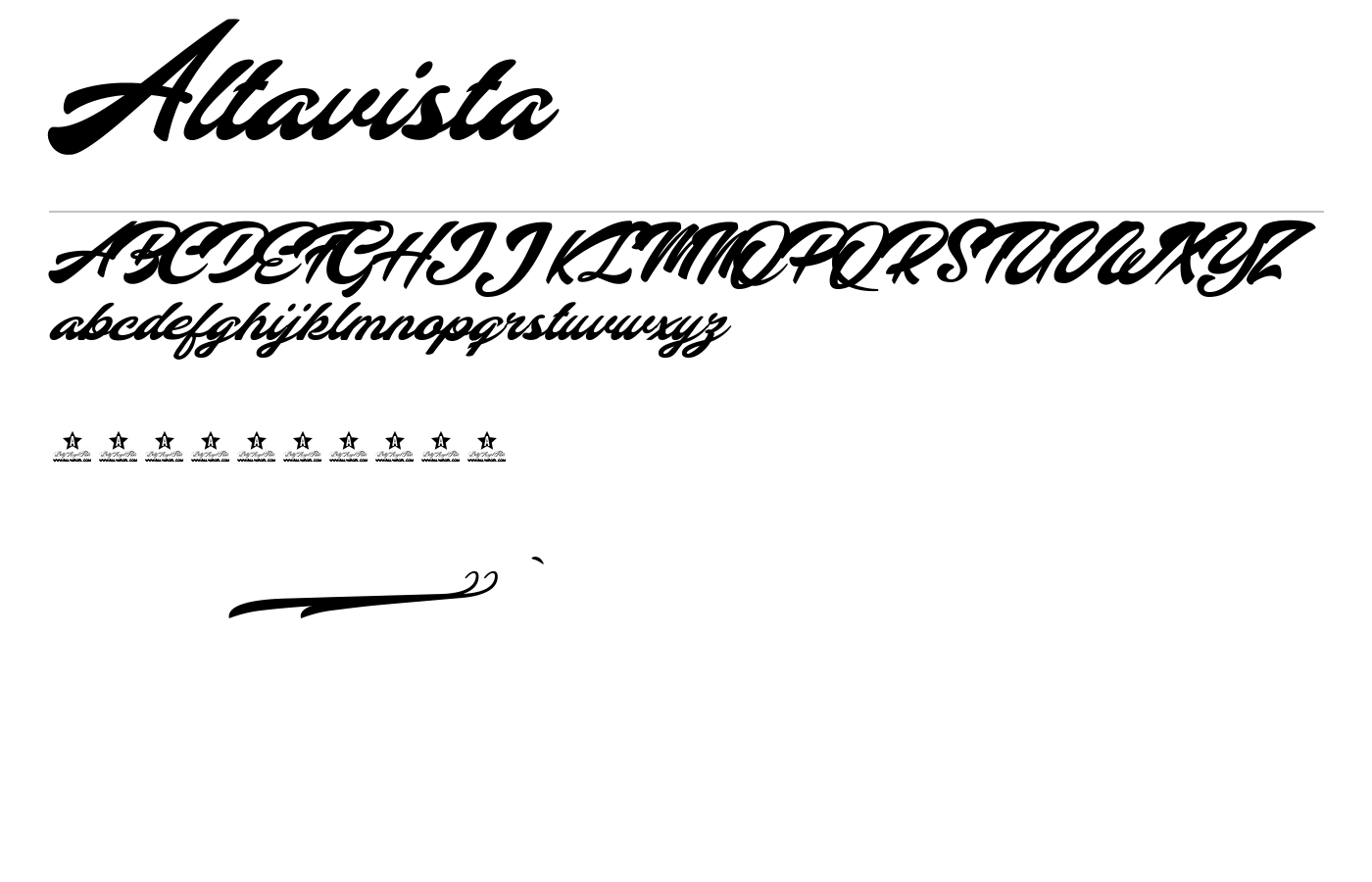
Altavista is a bold and elegant script font with smooth, flowing strokes that give it a classic and sophisticated feel. Its thick weight and connected letterforms make it perfect for logos, headlines, and branding that require a stylish, confident appearance with a touch of vintage charm. This font works beautifully for luxury packaging, fashion, and editorial designs where an expressive, handwritten look is desired.